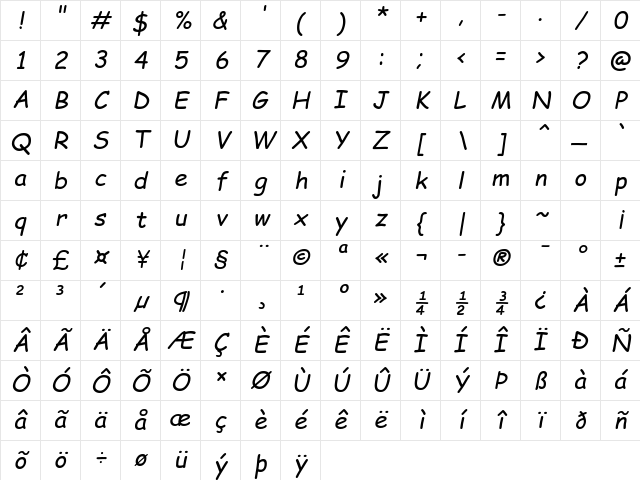
Comic Sans MS Italic Free Font
Comic Sans MS Italic
Foundry: Microsoft Corporation
Designer: Vincent Connare, Terrance Weinzierl
Complete Comic Sans MS Italic glyph index. Displaying only characters natively supported by Comic Sans MS Italic font.
Design Context for Comic Sans MS
Comic Sans MS has an approachable, lighthearted character - its loose, expressive forms are well-suited to children's content, casual branding, and fun-first design. The slanted form adds forward momentum and visual energy.
Font Pairing: Pairs well with a rounded or humanist sans for body copy, maintaining the friendly tone without relying on Comic Sans MS to carry extended reading.
Pro Tip: Use Comic Sans MS at larger display sizes where its expressive character can land. Pair with a clean, simple sans for body copy to maintain readability.